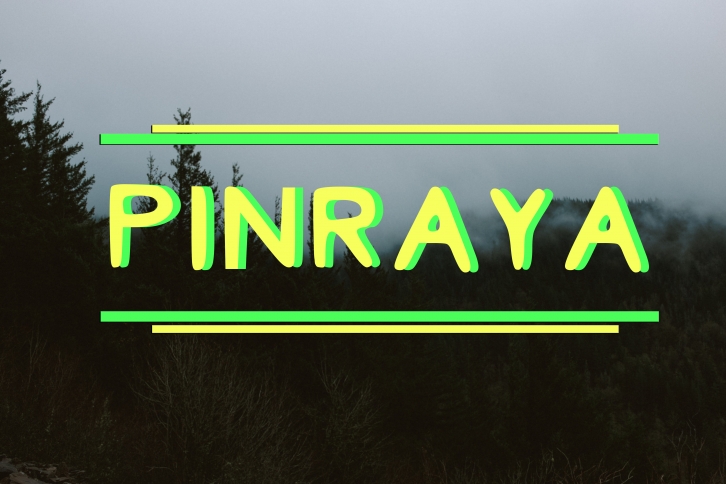
Pinraya is a unique and fun display font that is both legible and fashionable.  Use this display font to give an edge to your designs and creative projects.